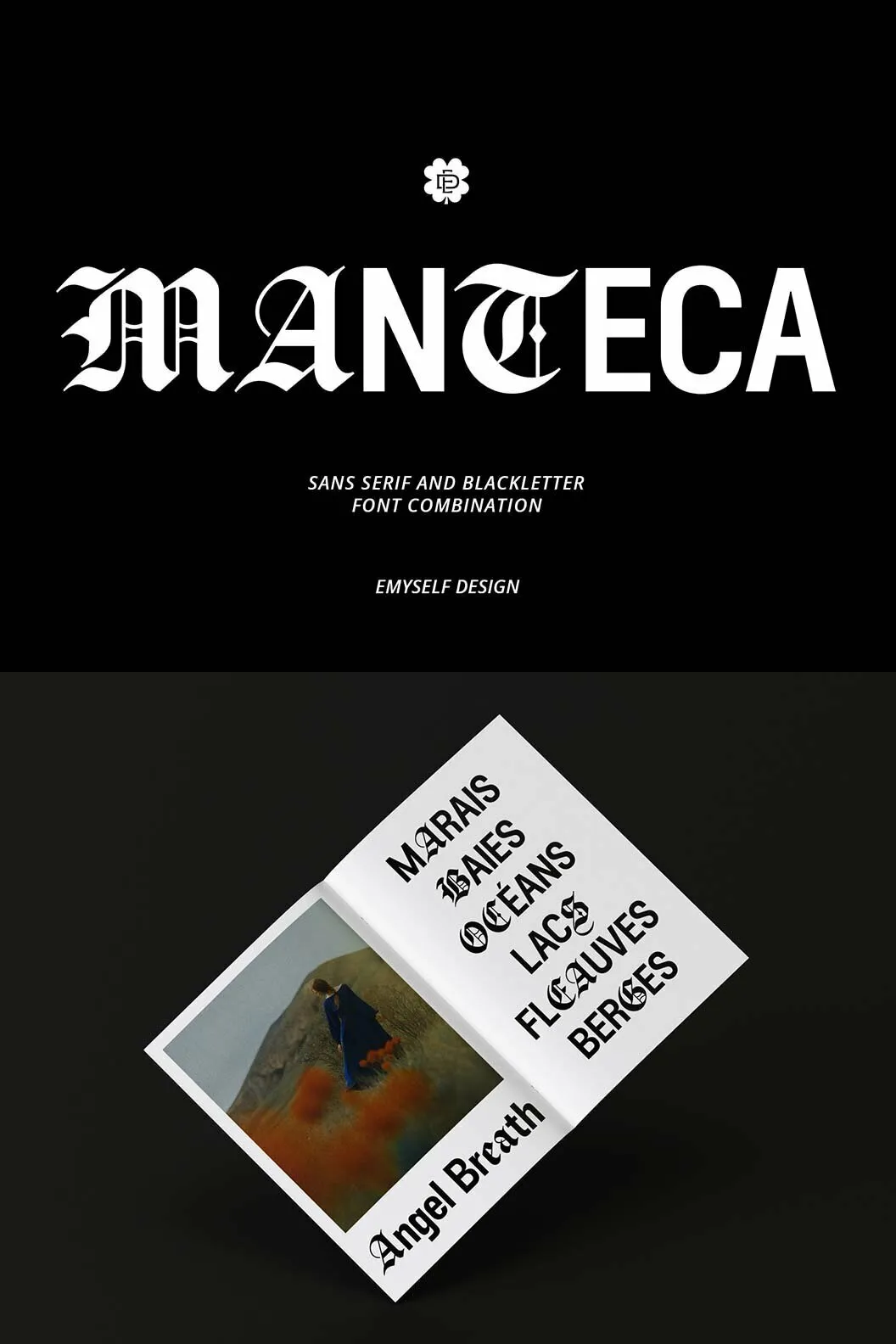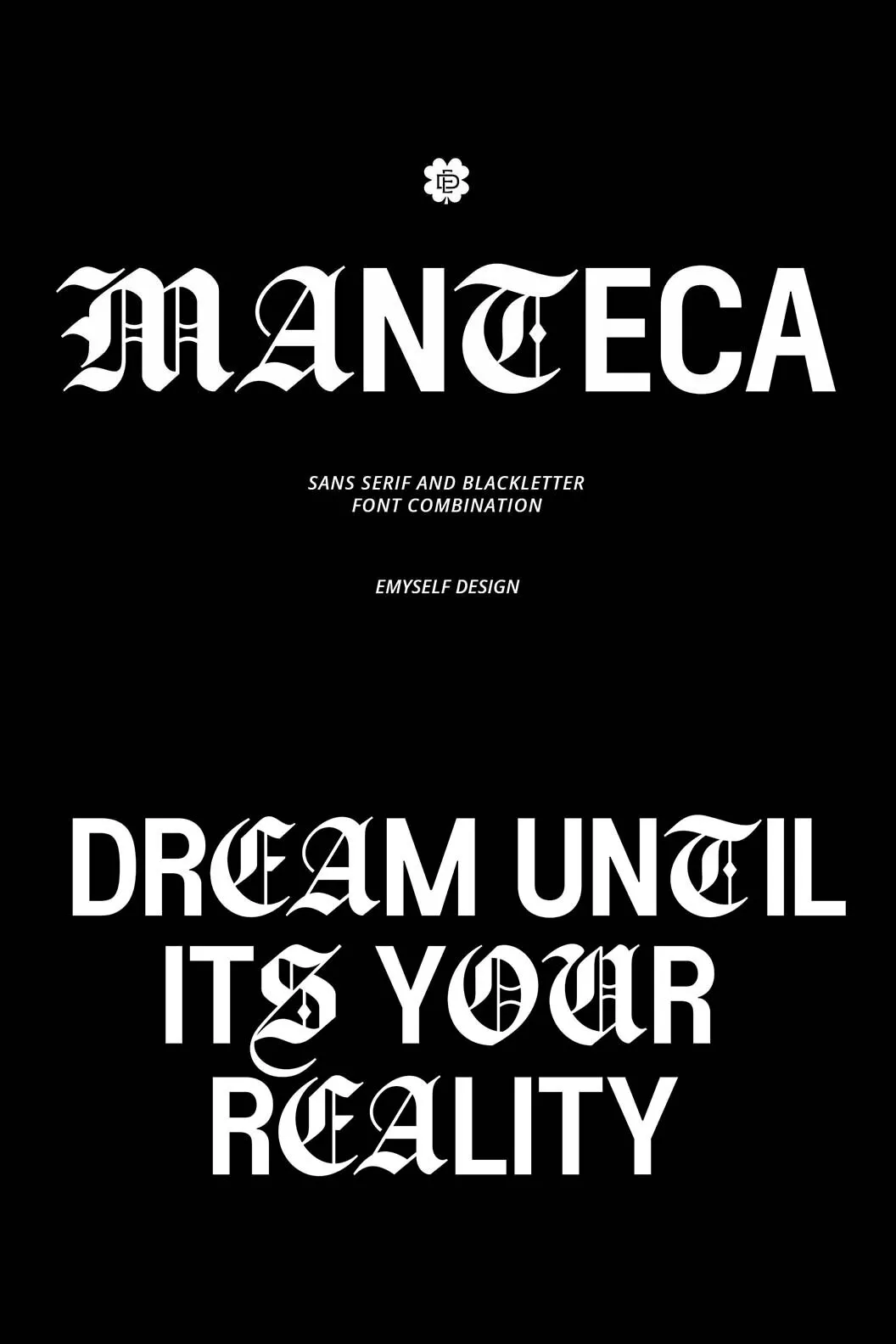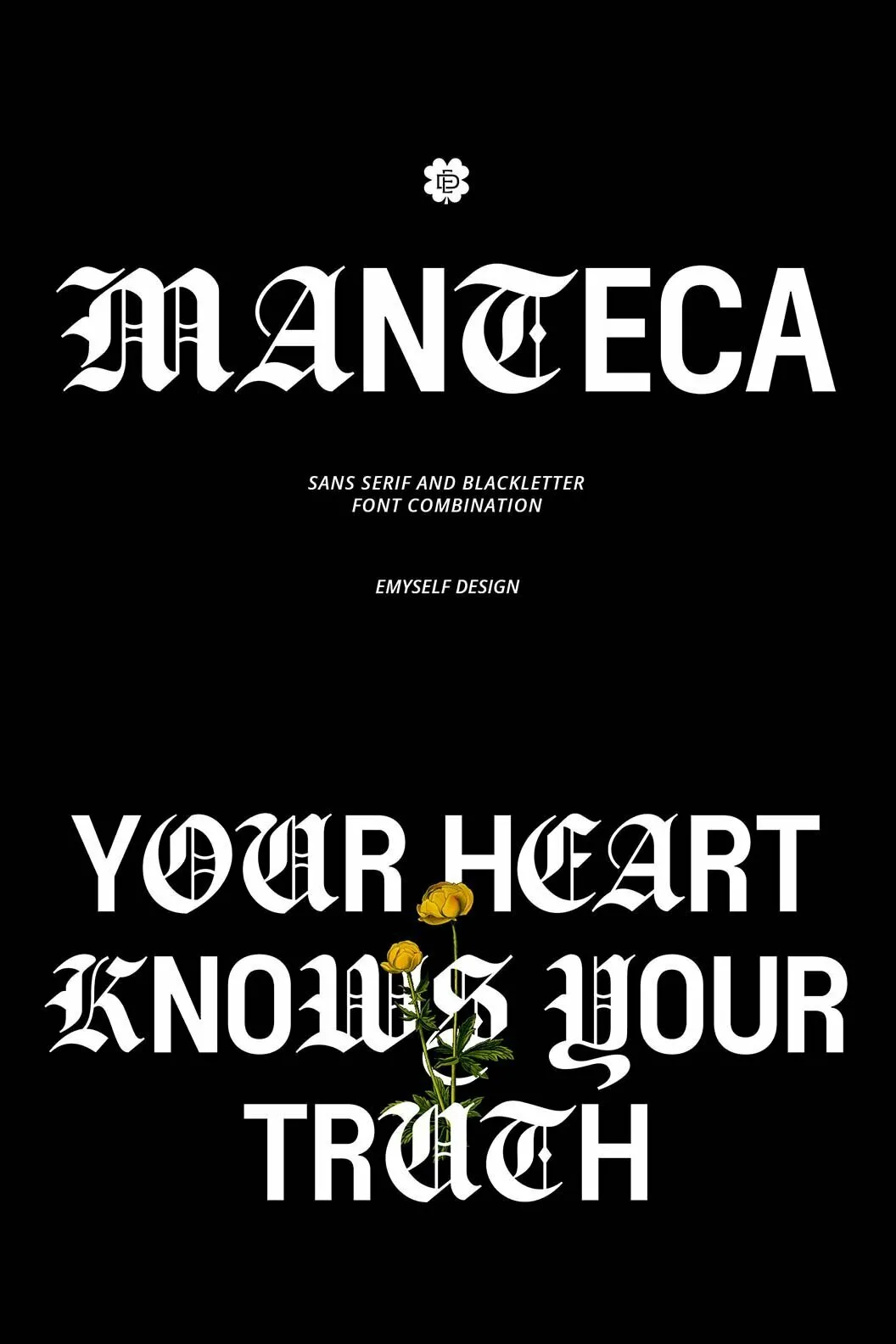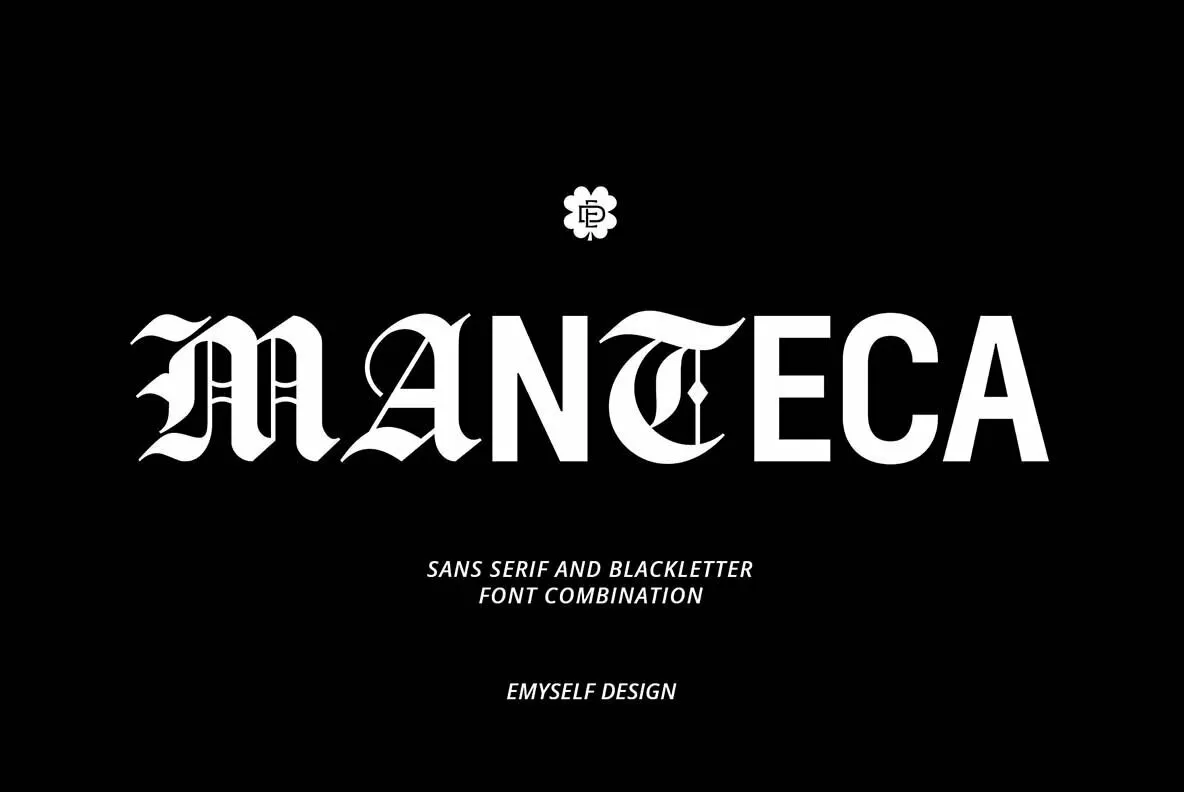
ED Manteca Font
Discover the captivating fusion of sans serif and blackletter in ED Manteca
Manteca, a design boasting alternative characters, ligatures, and